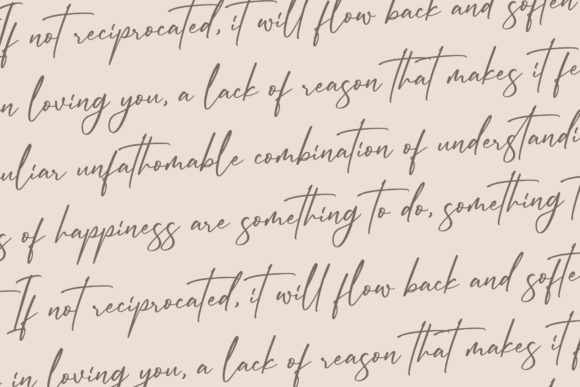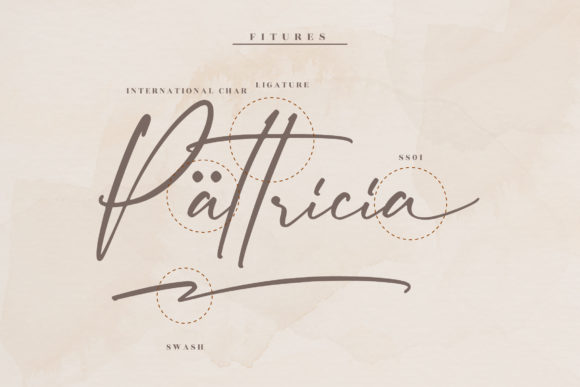
About Andershon Magnolia Font
Andershon Magnolia is an exquisite handwritten font, masterfully designed to become a true favorite. It maintains its classy calligraphic influences while feeling contemporary and fresh. Fall in love with it and bring your projects to the highest levels!